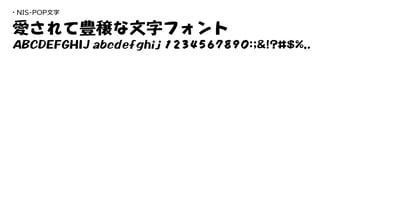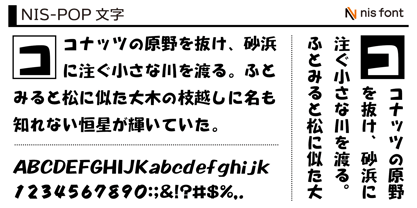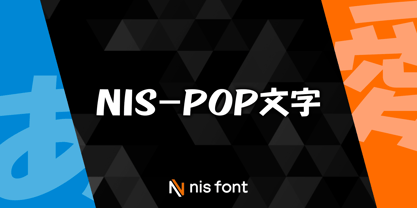
OT-NIS_POP
The OT-NIS_POP Font Family was designed by and published by NIS Fonts. OT-NIS_POP contains 1 styles. More about this family
This is a classic POP typeface, well-known for use in store displays and flyers. In addition to the basic qualities of POP fonts—high readability and strong appeal—it offers a humorous and playful charm that makes it enjoyable to look at. The character set includes kana, kanji, and symbols from JIS Level 1, along with 94 selected kanji characters from JIS Level 2. Special symbols are included in Zones 01 and 02 of JIS Level 1. Supports the JIS2004 character set.